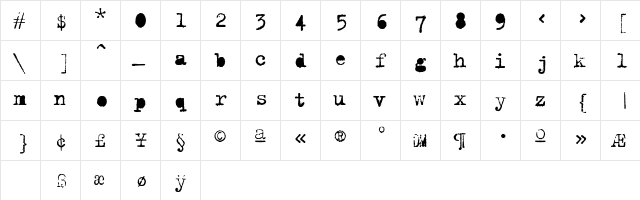
TrixieExtra Regular
Design Context for TrixieExtra Typeface
TrixieExtra is a composed and adaptable typeface that performs quietly and consistently across a wide range of design contexts.